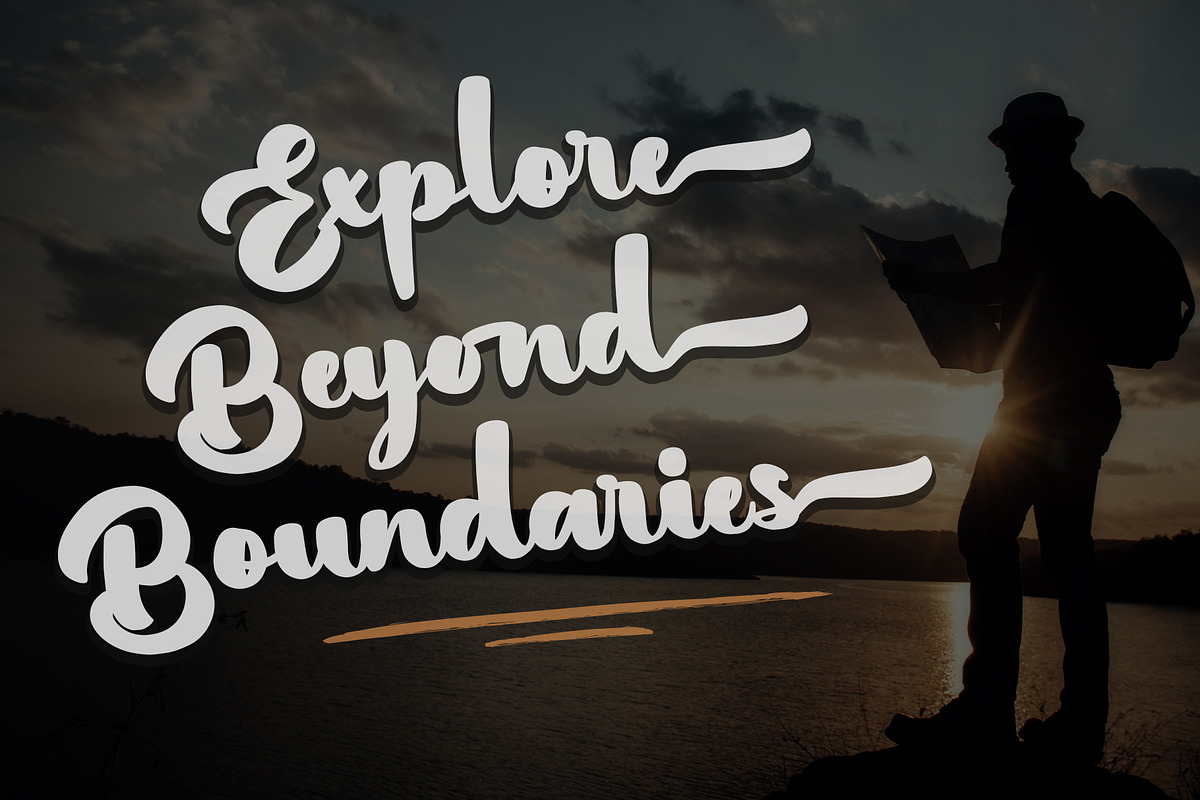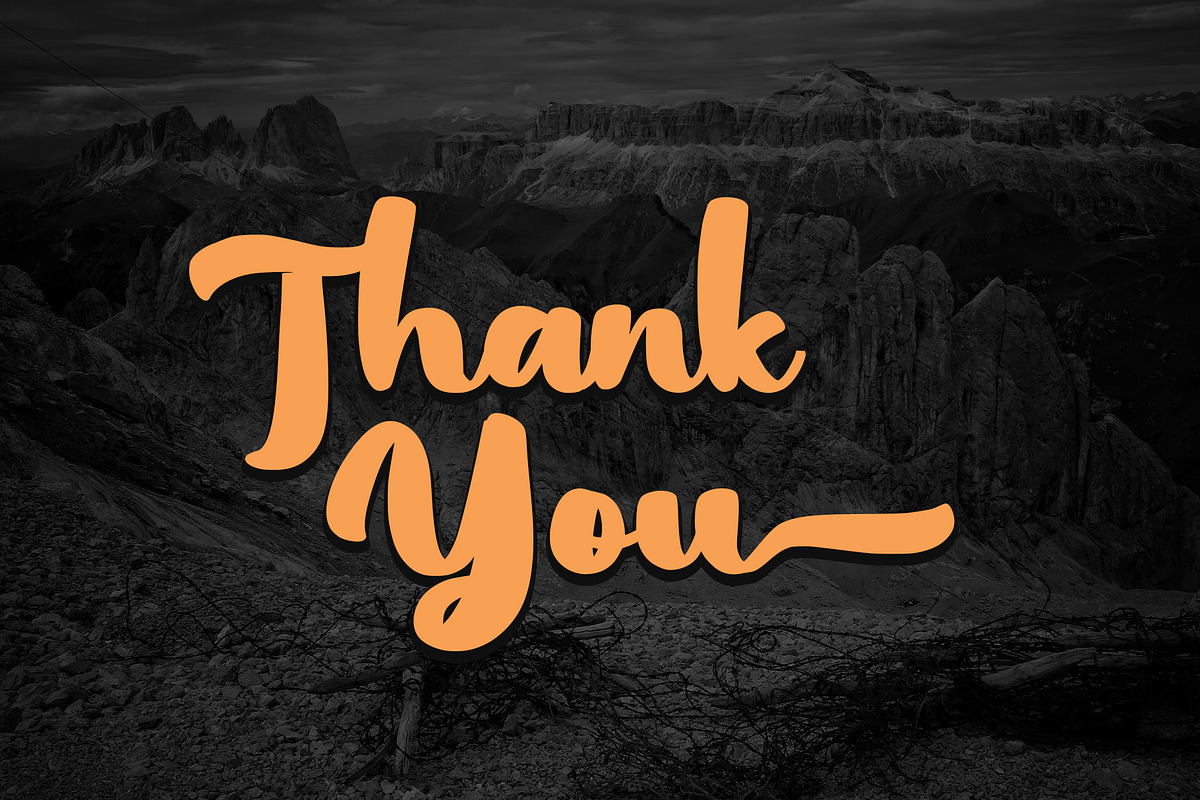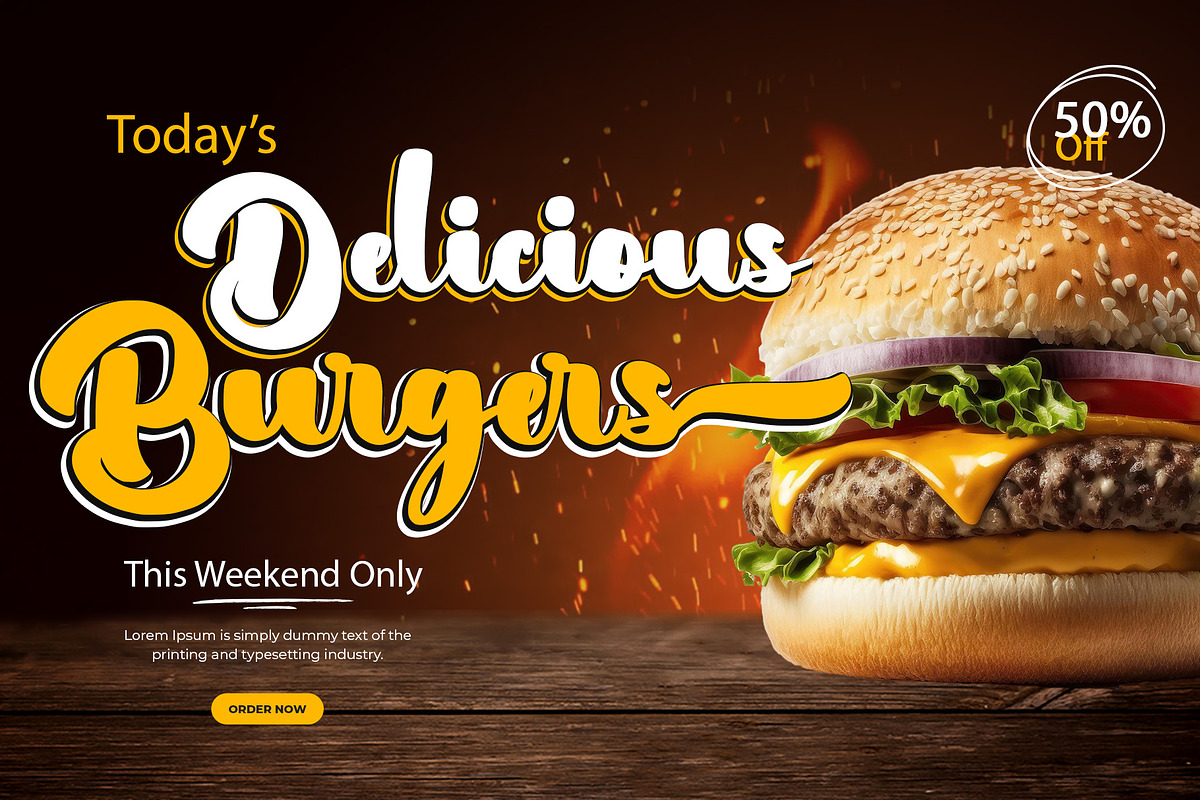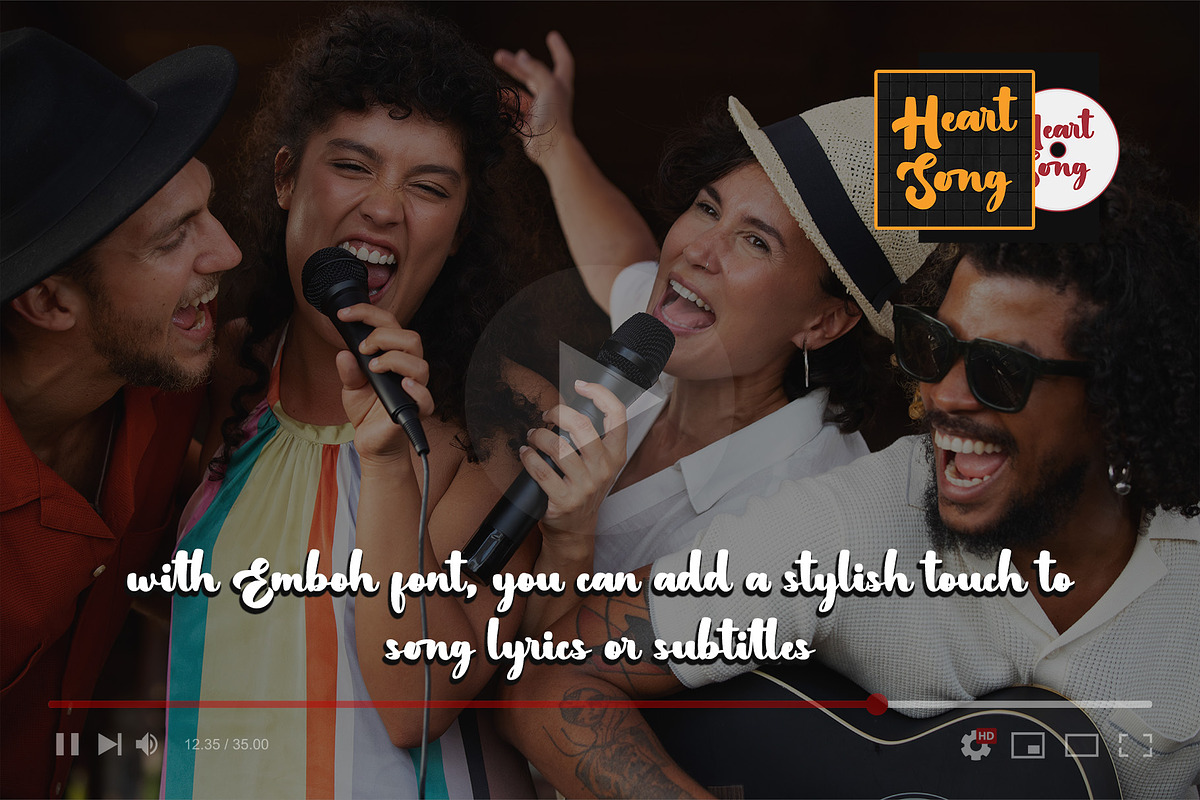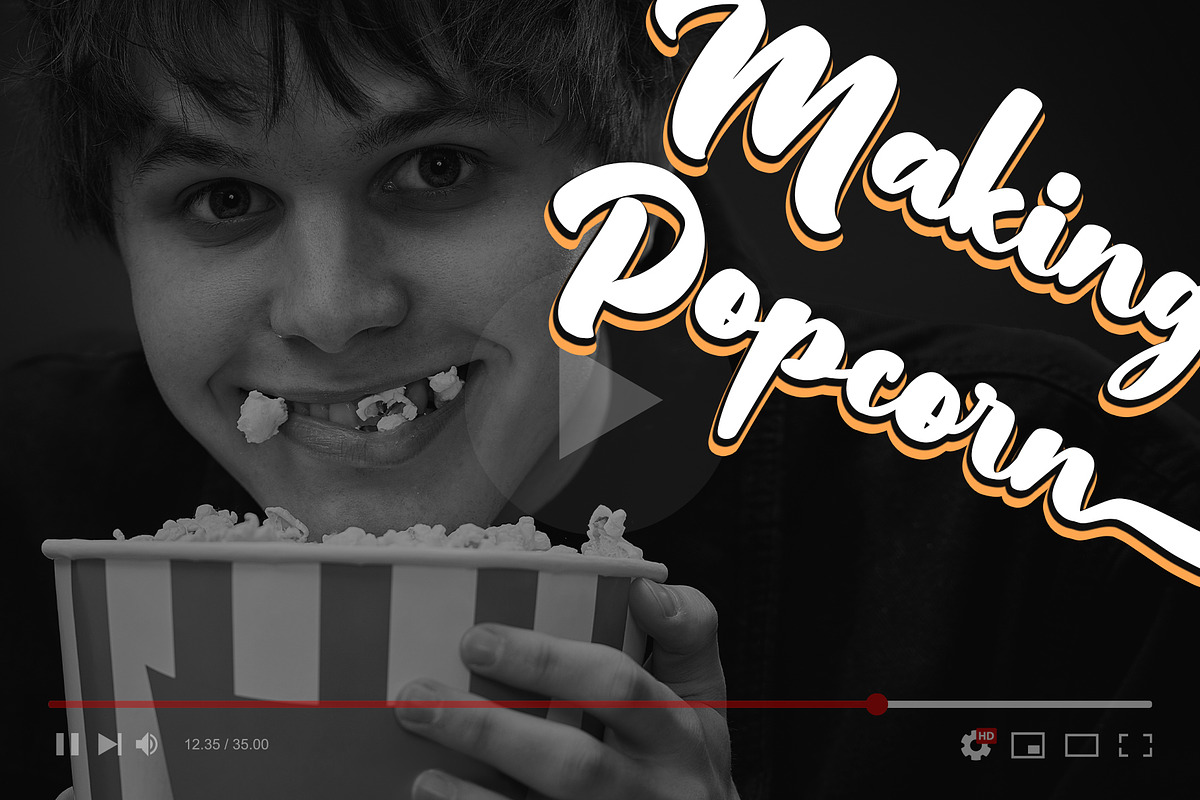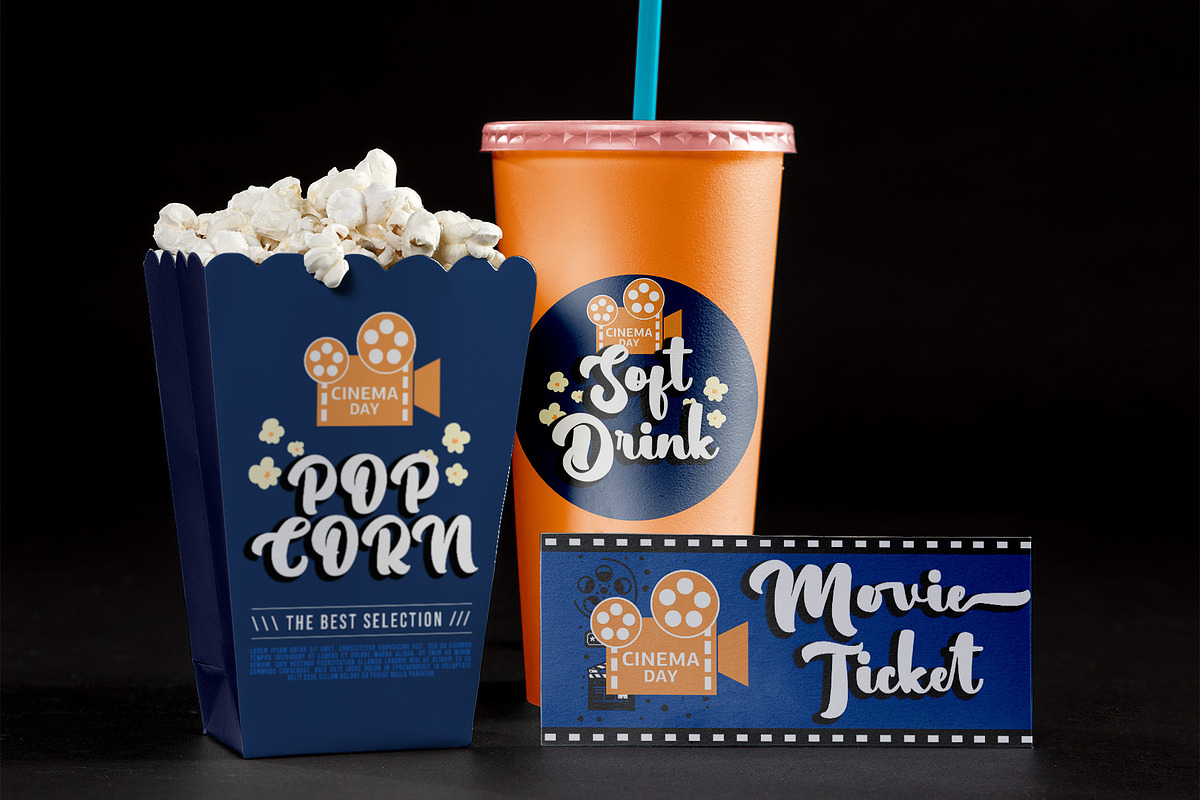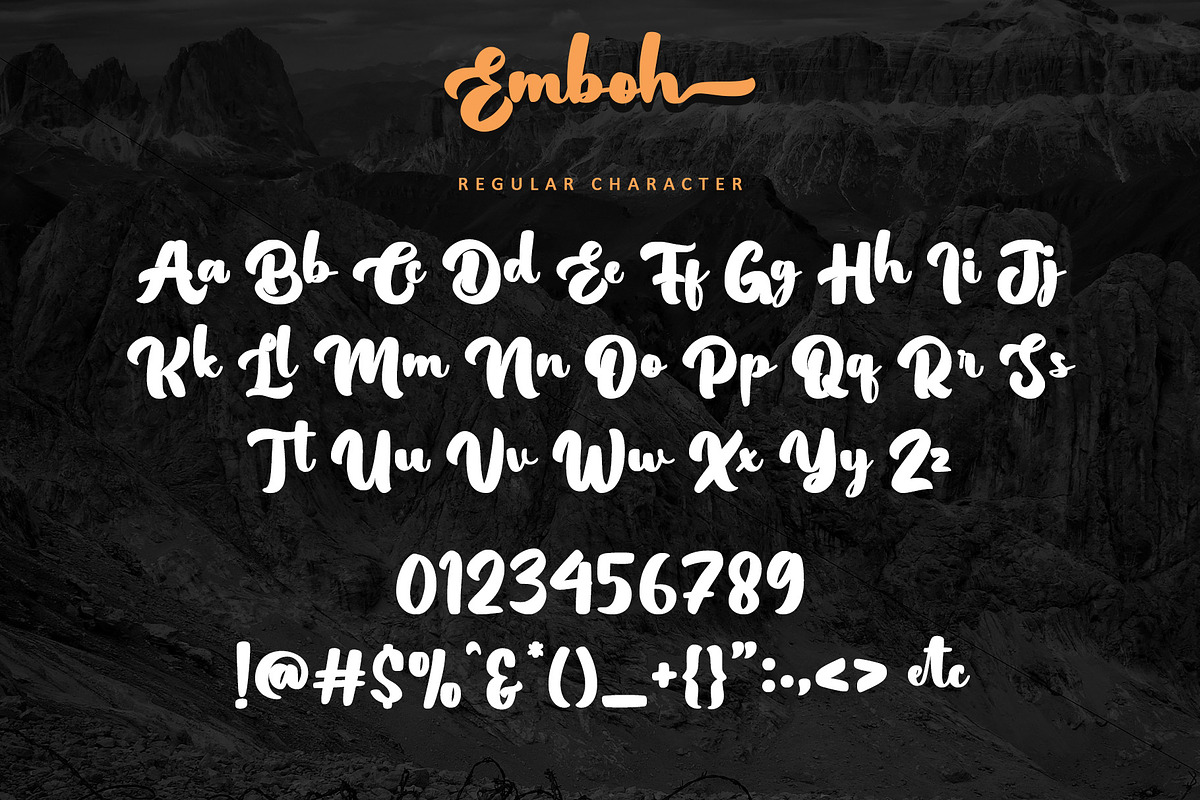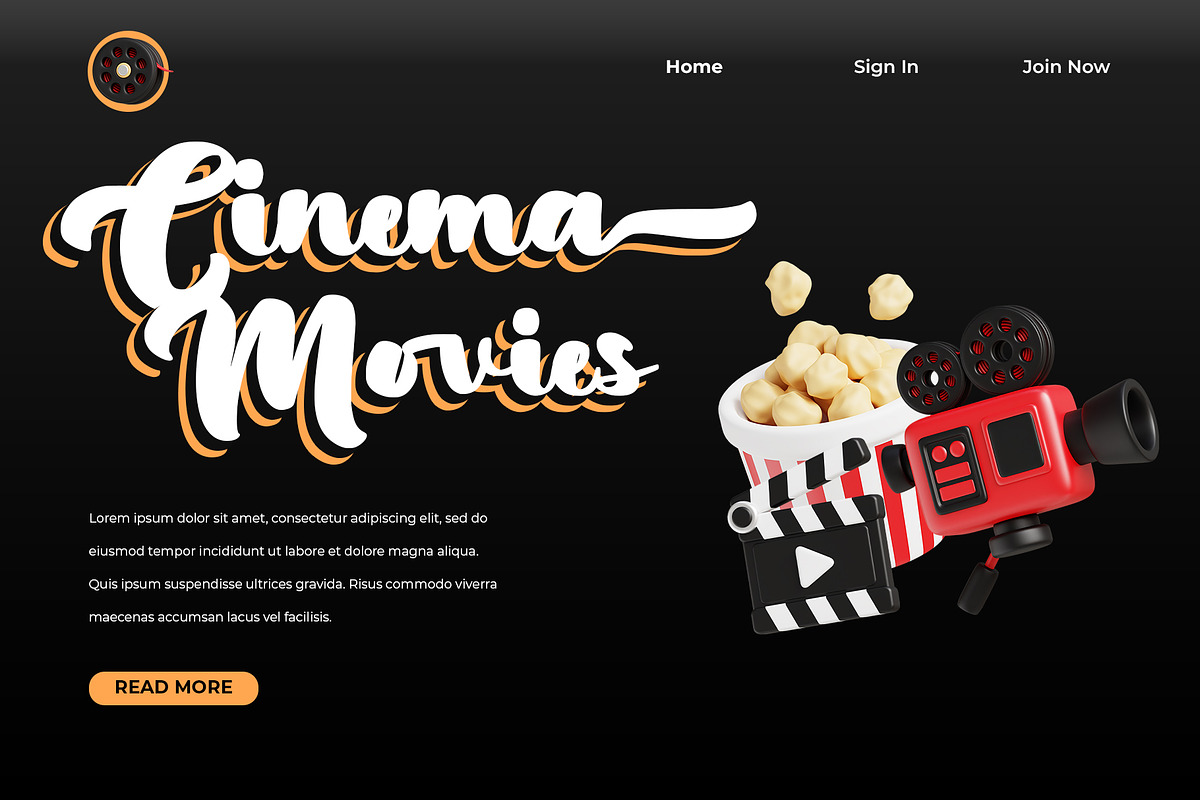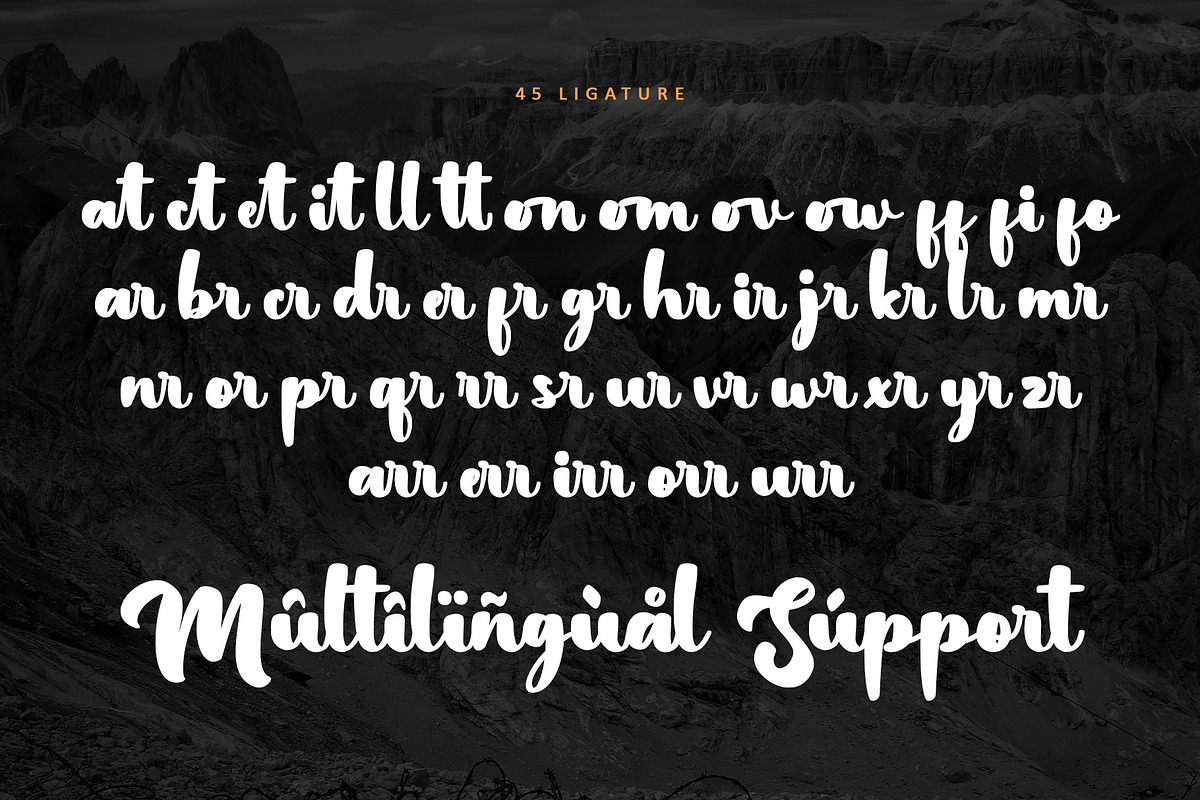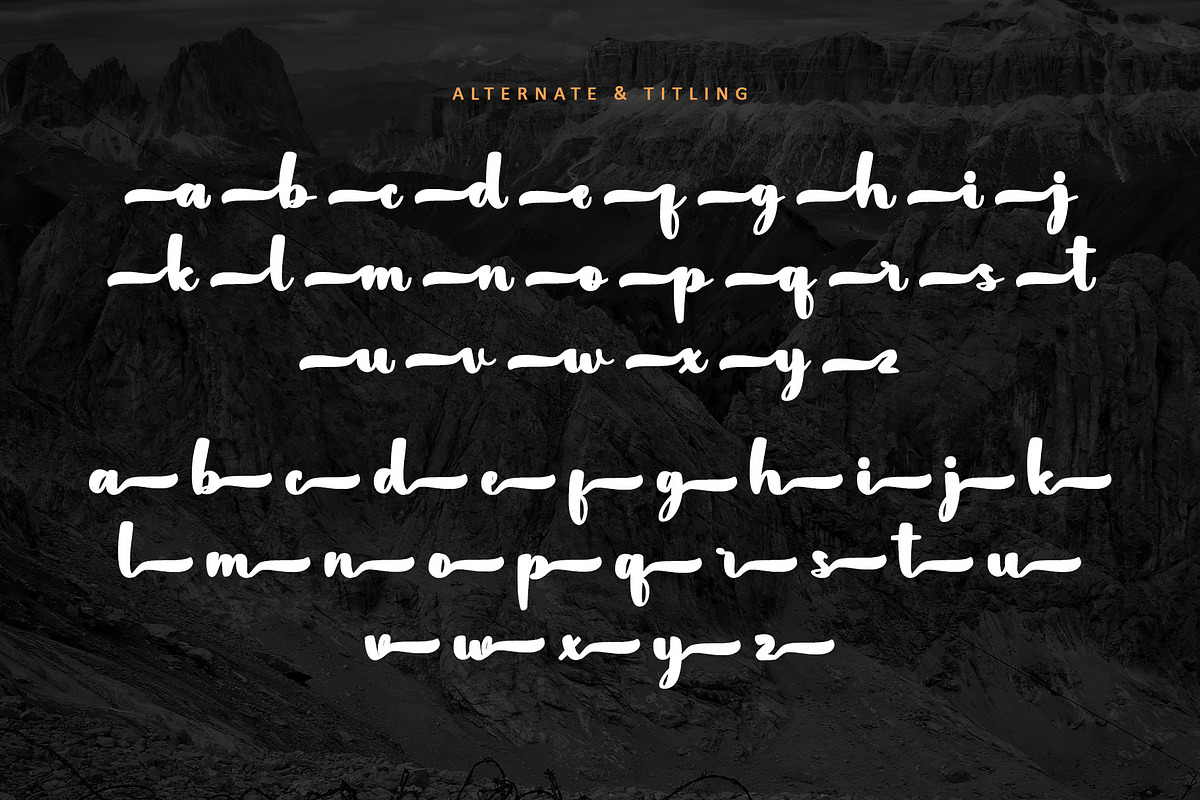
Emboh
Introducing Emboh, a bold handwritten font that defines modern sophistication. With its striking strokes and dynamic flair, Emboh effortlessly blends casual charm with a touch of boldness, making it an essential addition to any design toolkit. Whether you're aiming for a standout headline or want to add a personal touch to your project, Emboh delivers. Its PUA encoding ensures seamless access to a plethora of glyphs and swashes, ensuring your designs stand out with ease. Elevate your projects with Emboh, the font that combines elegance with ease.
- Support multilingual; ä ö ü Ä Ö Ü ß ¿ ¡
- lowercase and uppercase letters
- Alternate, titling & ligature